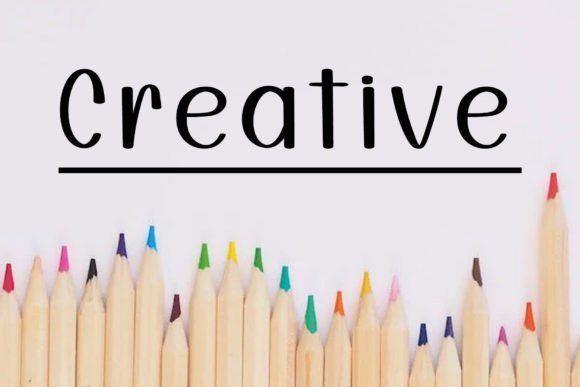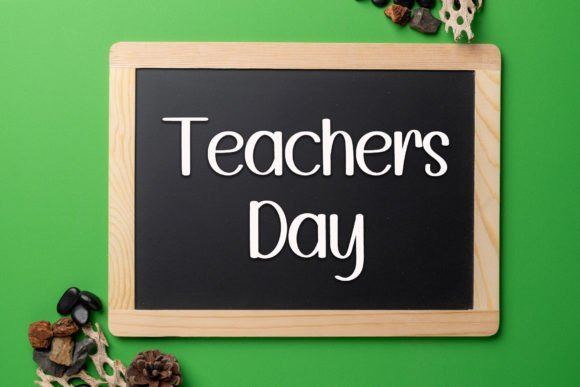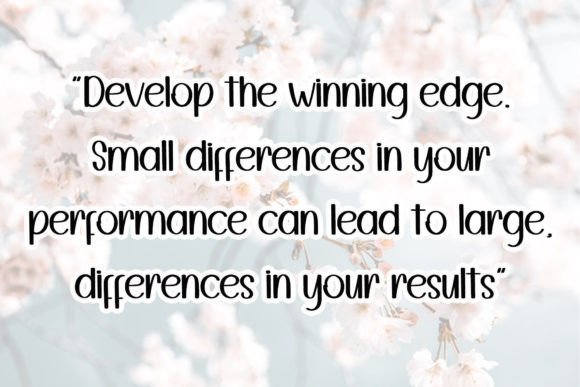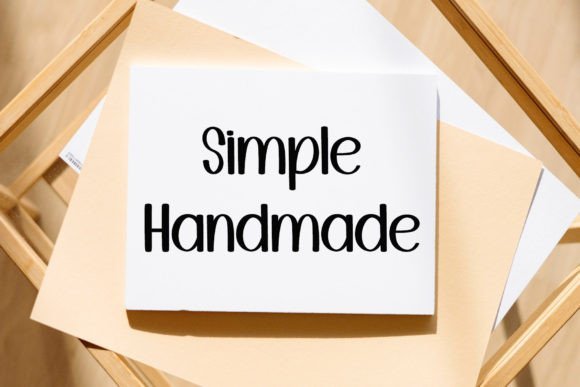
Happy Graduation Font
Happy Graduation is a flowing, natural handwritten font that exudes spontaneity and charm. Its organic strokes and gentle curves evoke a sense of warmth and friendliness. Perfect for invitations, quotes, and packaging, it adds a touch of whimsy and elegance to any project, delighting viewers with its graceful demeanor.